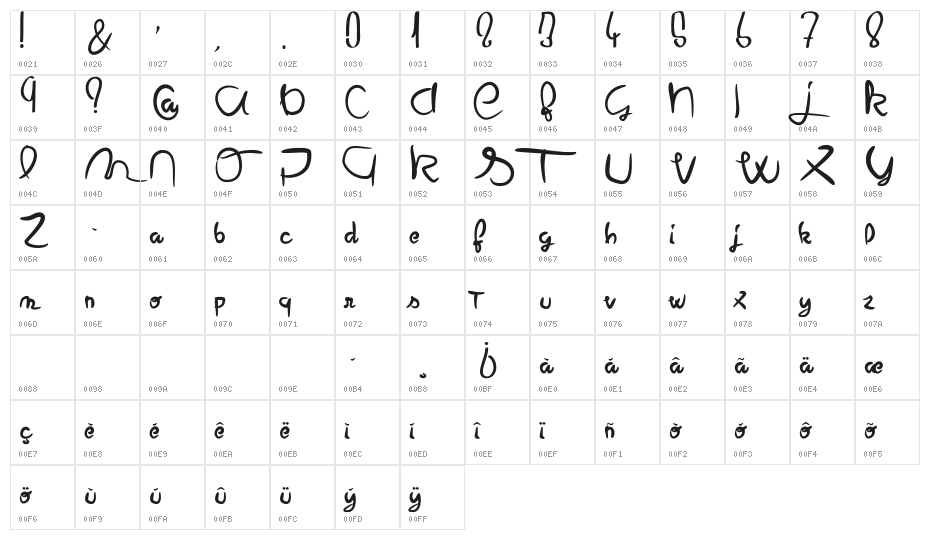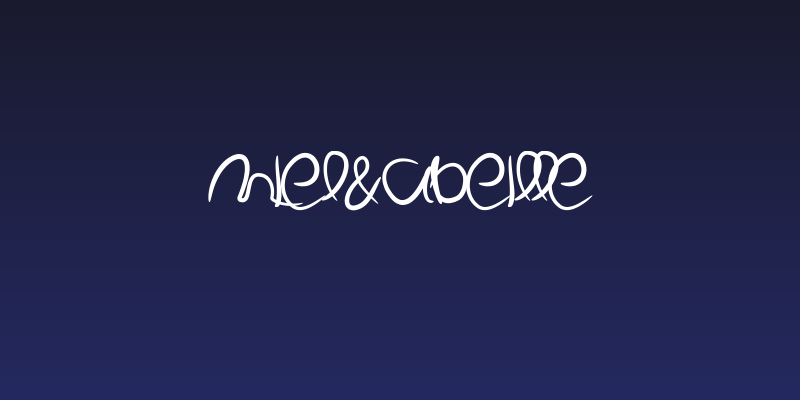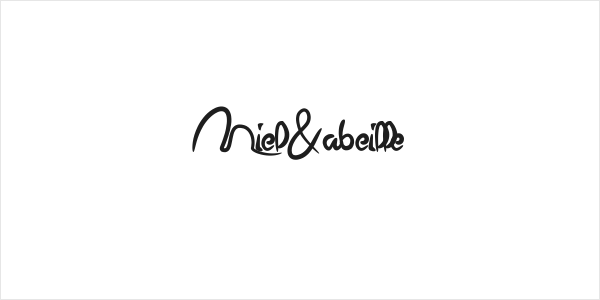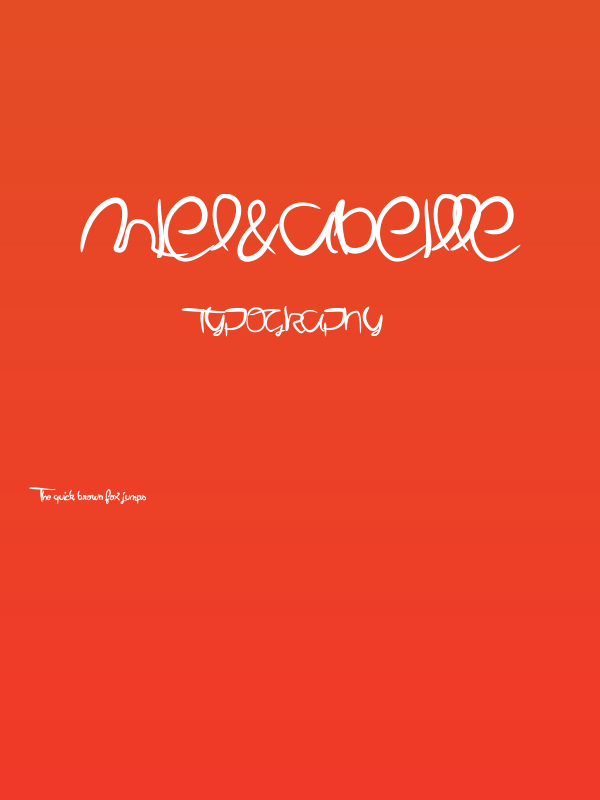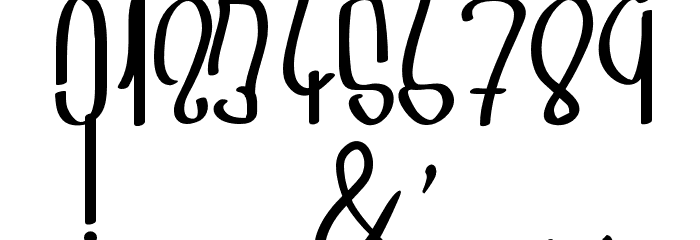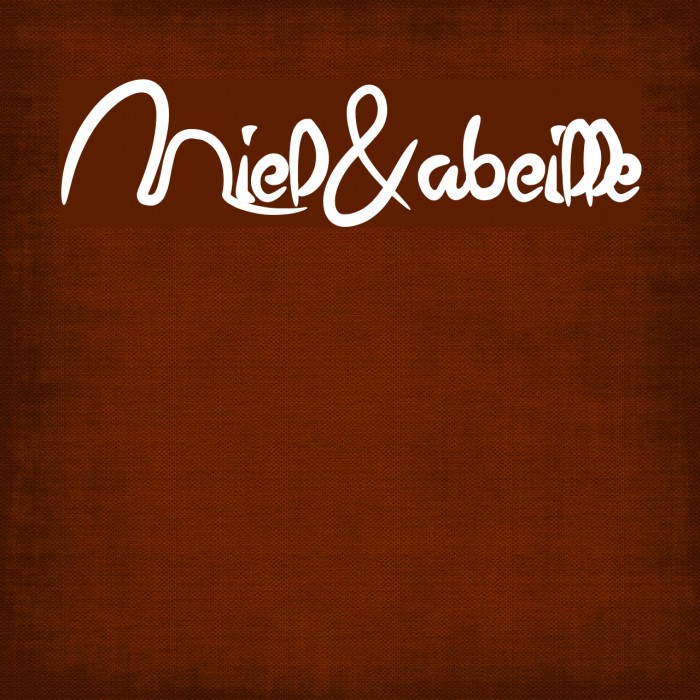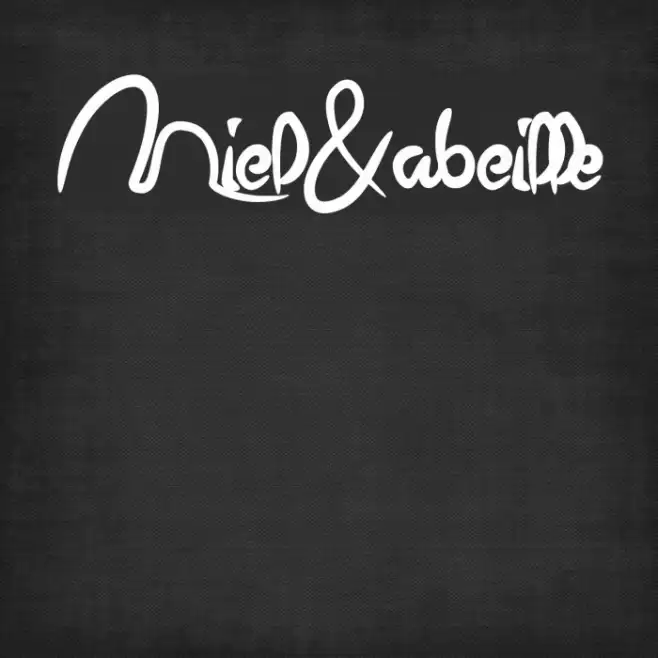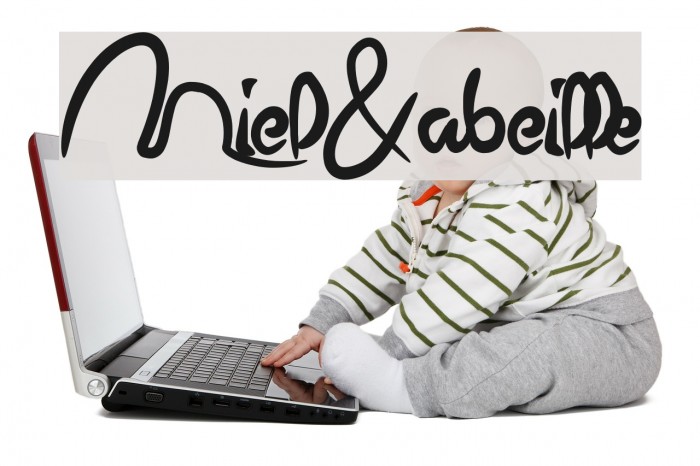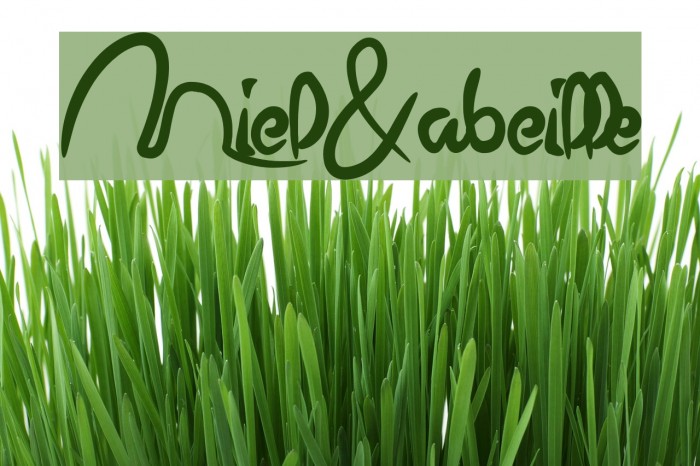
Miel&abeille Font
Miel&abeille Description
This font features a playful and whimsical script style, characterized by its fluid and continuous strokes. The letters are interconnected, giving it a handwritten feel that is both casual and artistic. The uppercase and lowercase letters maintain a consistent style, with some letters having exaggerated loops and curves. Numbers and special characters are designed to match the overall aesthetic, ensuring a cohesive look. The font's unique style makes it suitable for creative projects that require a personal touch.
| Proposed Projects | Ideal for greeting cards, invitations, personal branding, and creative projects that require a handwritten touch. |